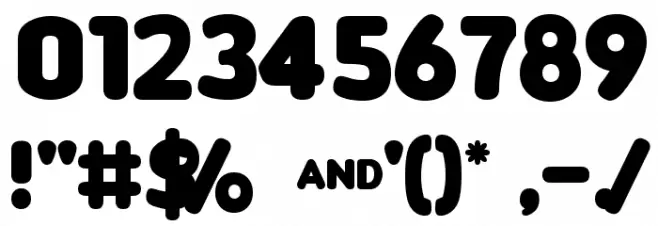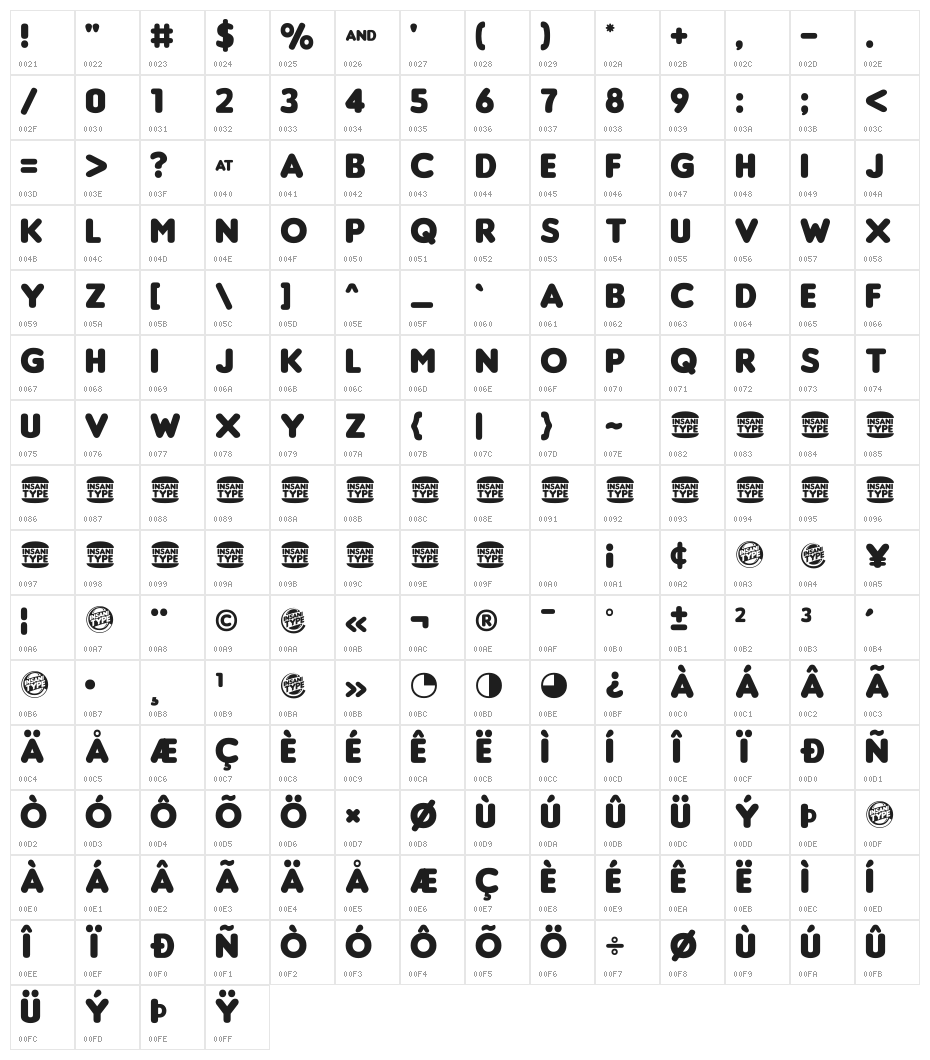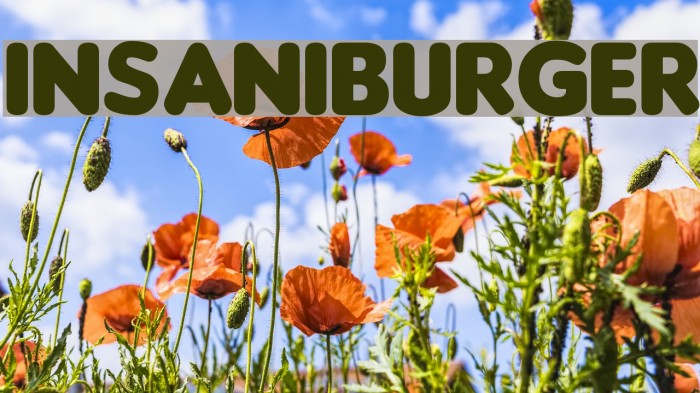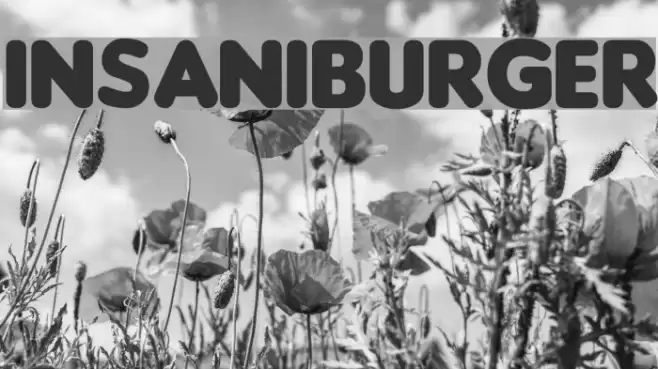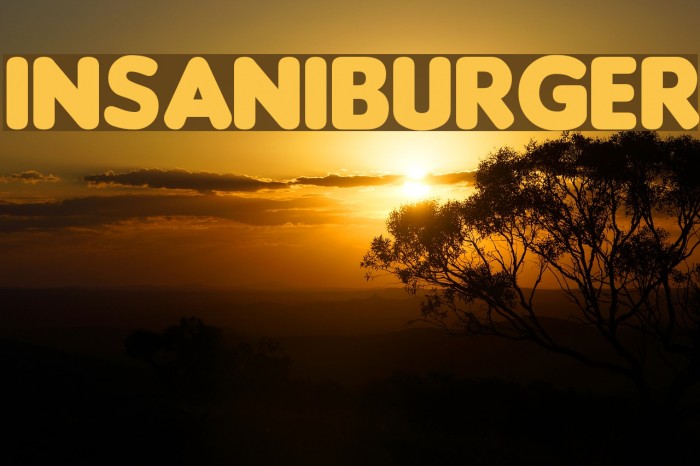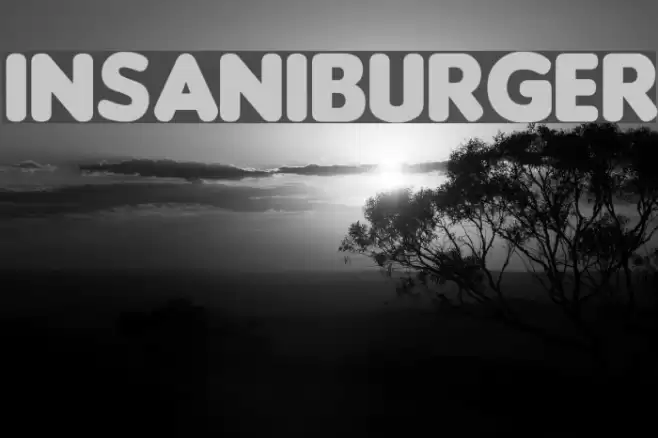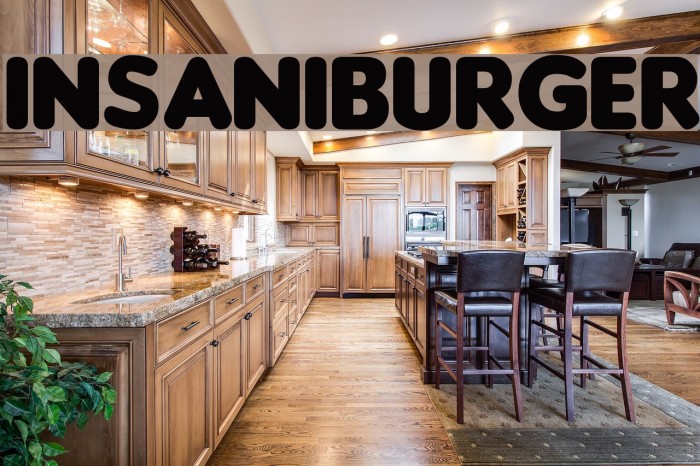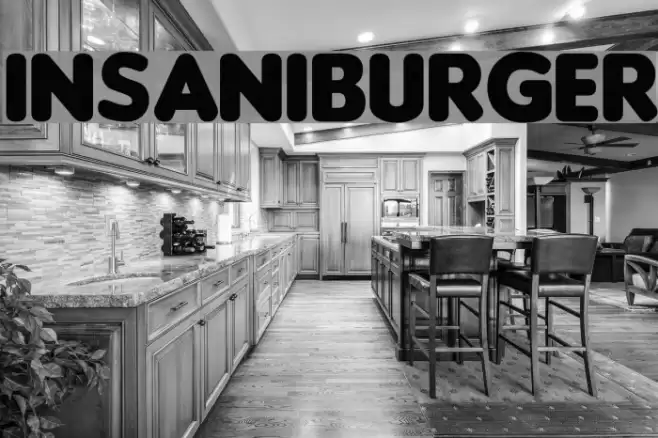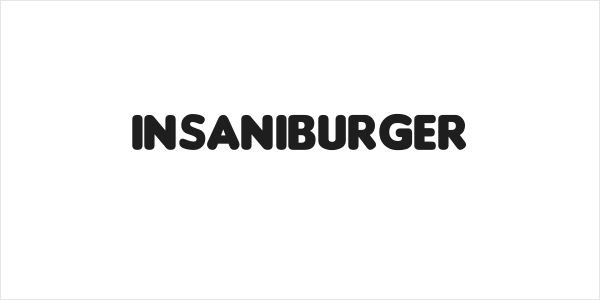
Insaniburger Font
Insaniburger Description
This font features bold, rounded characters that convey a playful and approachable aesthetic. The letters are uniformly thick, with a consistent stroke width that enhances readability. The rounded edges give it a soft, friendly appearance, making it ideal for casual and fun design projects. The numbers and special characters maintain the same rounded style, ensuring a cohesive look across all text elements. Its boldness and unique style make it stand out, perfect for capturing attention in headlines or logos.
| Overall Style | Playful, Modern |
| Proposed Projects | Ideal for branding, children's books, playful advertisements, and eye-catching headlines. |